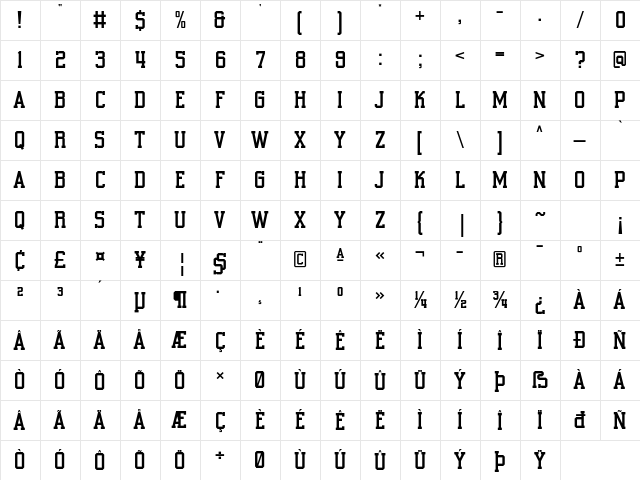
Origin Athletic Regular
Foundry: HansCo Studio
Designer: Burhan Afif
Design Context for Origin Athletic
Origin Athletic brings high-energy athletic personality to the page - its confident, muscular forms are built for impact.